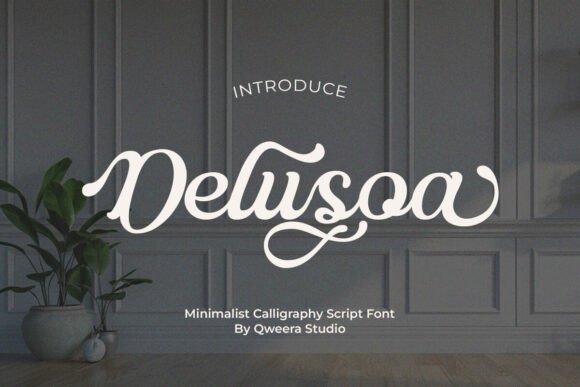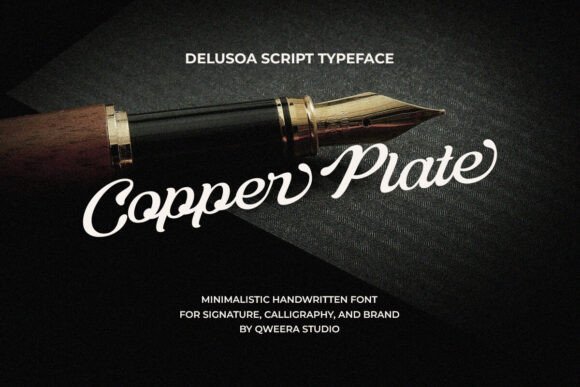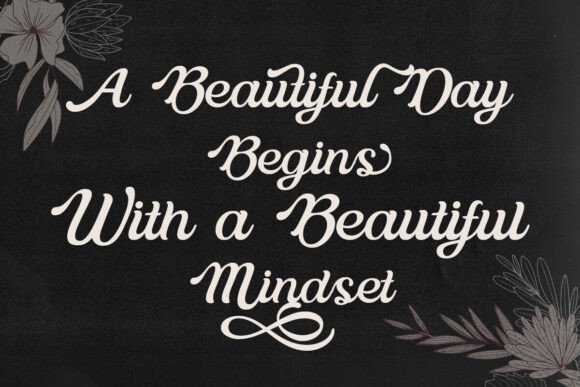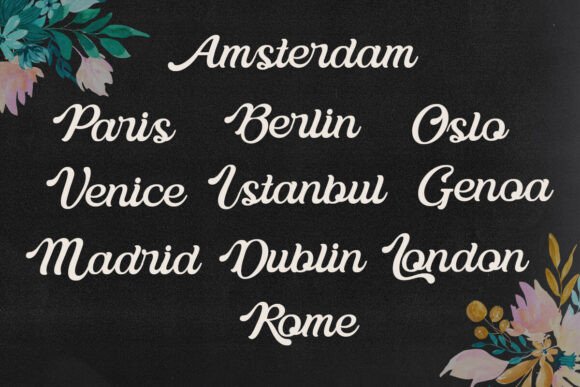
Delusoa Font: Elegant Calligraphy Script for Modern Branding
About the Delusoa Font
Presenting Delusoa Font, a unique and stylish typeface that will make your work stand out. Delusoa – Minimalist Calligraphy Script Font for Elegant Designs
Delusoa is more than just a font—it’s a stylish minimalist calligraphy script typeface designed to bring a refined and modern handwritten touch to your creative projects. Featuring elegant alternates and swashes, this font offers flexibility for crafting stunning typography effortlessly. Whether you’re working on branding, posters, magazines, invitations, packaging, or print designs, Delusoa enhances your projects with its smooth, flowing script and minimalist elegance.
Where Minimalism Meets Elegance
Delusoa stands out with its clean, flowing lines and stylish features, offering endless creative possibilities. Its versatility makes it ideal for projects that demand a modern yet elegant aesthetic, from editorial layouts to creative branding. This font isn’t just a tool—it’s a statement of creativity and sophistication.
Key Features
✔ Minimalist Calligraphy Script Design – Perfect for branding, posters, magazines, and print designs.
✔ Elegant Alternates & Swashes – Add a unique and creative touch to your designs.
✔ Smooth and Flowing Script – Ensures your projects stand out with elegance and style.
✔ Multilingual Support – Compatible with over 20 languages, including English, French, German, Spanish, and more.
Elevate Your Designs with Delusoa
Delusoa isn’t just a font—it’s a tool to transform your creative projects into elegant, minimalist masterpieces. Whether you’re designing for print, digital, or branding, this font ensures your work stands out with confidence and style.
Delusoa Font Usage Examples
Delusoa Font Example